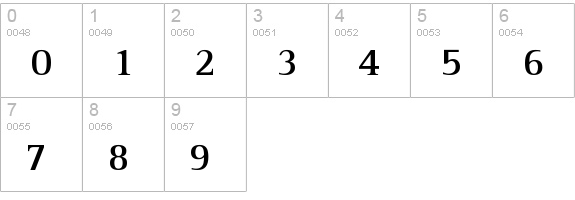
Libre Serif SSi Bold Font Details
Libre Serif SSi Bold is a strong, high-contrast variant in the Libre typeface family \xE2\x80\x94 well suited to headlines, attention-grabbing titles, and strong calls-to-action.
Libre Serif SSi Bold font is a modern and versatile typeface that exudes confidence and elegance. Its bold weight commands attention while maintaining excellent readability, making it perfect for headlines, titles, and other display purposes. The font's clean lines and well-balanced proportions give it a professional and polished look. What sets Libre Serif SSi Bold font apart is its commitment to freedom – both in design and accessibility. This font is freely available to download at FontsMarket.com, allowing users to easily incorporate it into their projects without any restrictions. Embrace the bold and empowering presence of Libre Serif SSi Bold font in your designs today and make a lasting impression with its timeless appeal.